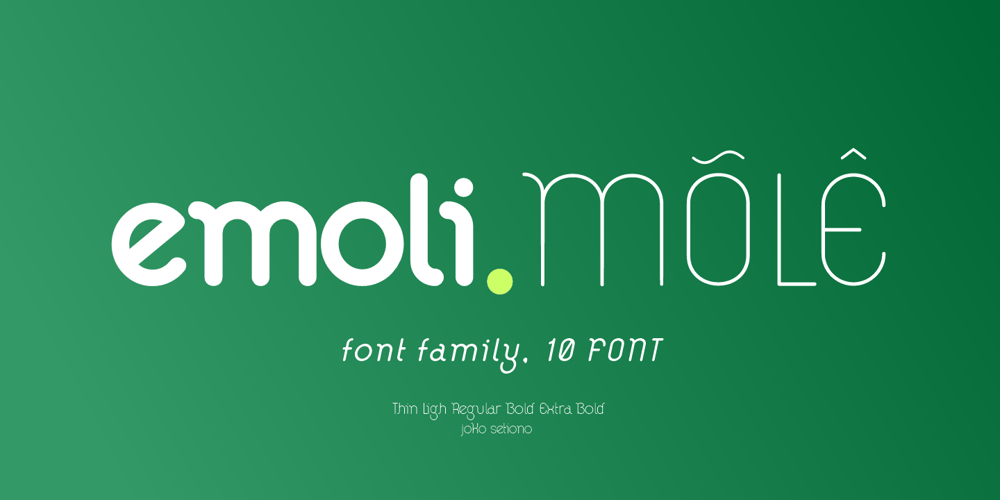
Emoli
Emoli font
Emoli Font Family was designed by Joko Setiono and published by Arttype7. Emoli contains 10 styles and family package options. Emoli is a strong font family with a laid-back style. Inspired by the strong bending of iron, a unique character can be felt through controlled letterforms and blunt finishes. Each font in this family is standalone, and strong and cute.Emoli consists of ten fontsEmoli-Thin & Emoli-Thin Italic, with the thinnest complexion looks luxurious in high appearance.Emoli-Light and Emoli-Light Italiclooks elegant combined with the weight of the Emoli Font family.Regular and italic emojis, the basis of emollient fonts, balance shapes, and letter uniqueness are found in this weight.Emoli Bold and Emoly Bold Italic will gently emphasize a strong character.Emoli Extra Bold and Emoli Extra Bold Italic, the thickest weights that will facilitate legibility and strong attitude.FEATURES10 weights / Italics / Lines / Numbers & SignsFont familyEmoli works well on applications, brands, logos, magazines, films.Different weights give you the full range to explore a variety of applications, while illustrated fonts give a modern, relaxed and powerful feel to any project.